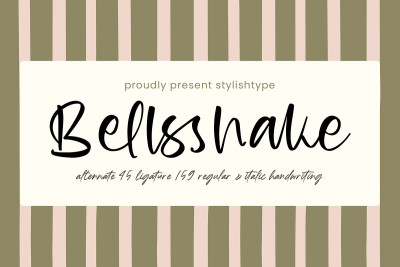
Bellsshake Modern Handwritten Font
Bellsshake Modern Handwritten combines clean construction with expressive detail, making it a dependable asset in any type toolkit.
Common applications include business cards, posters, web headers, advertising materials, book covers, and corporate identity systems.